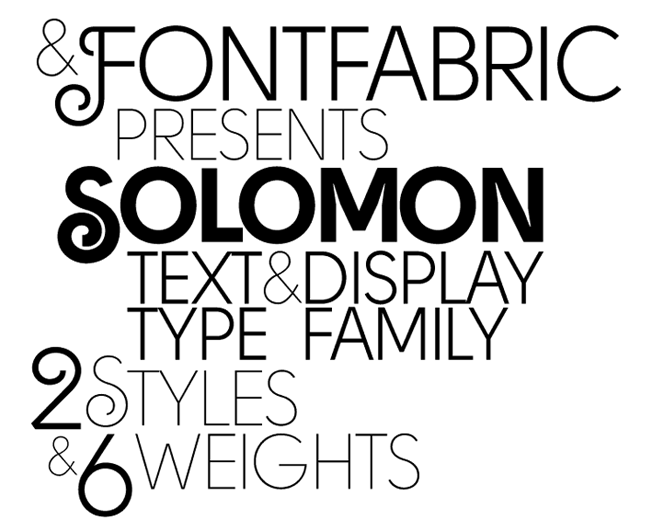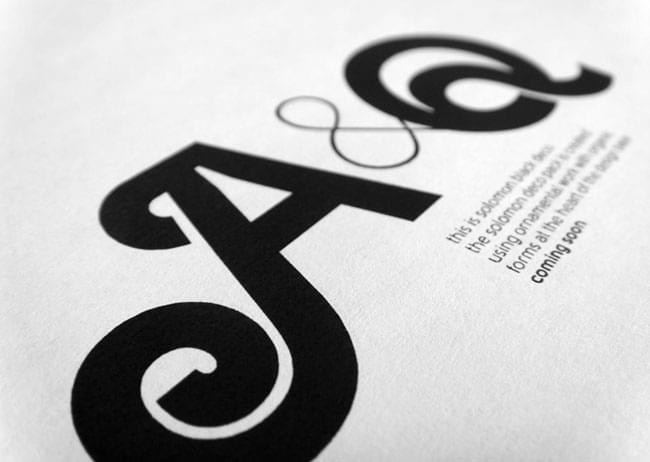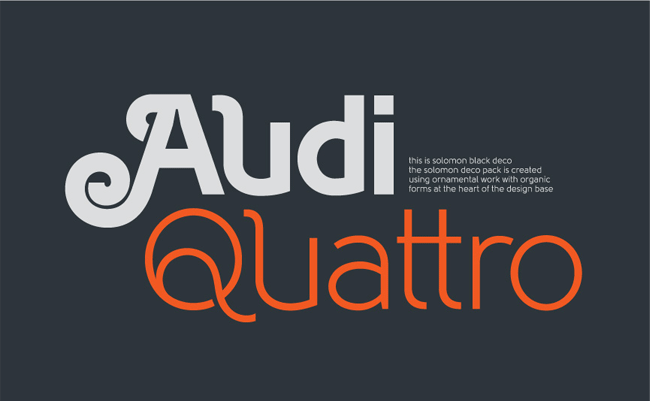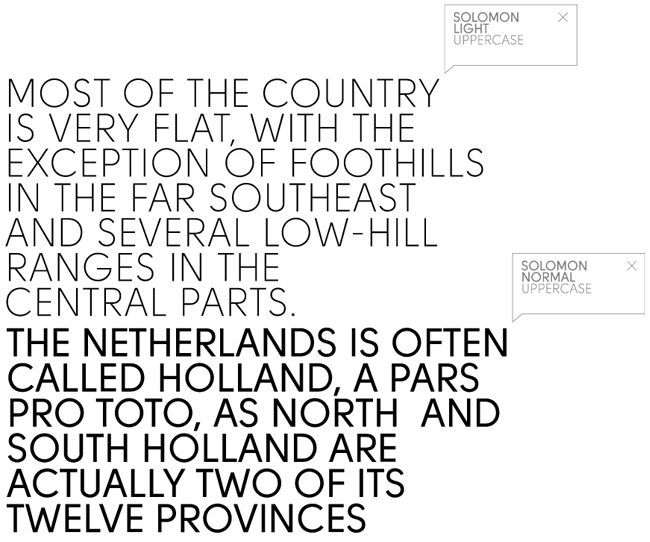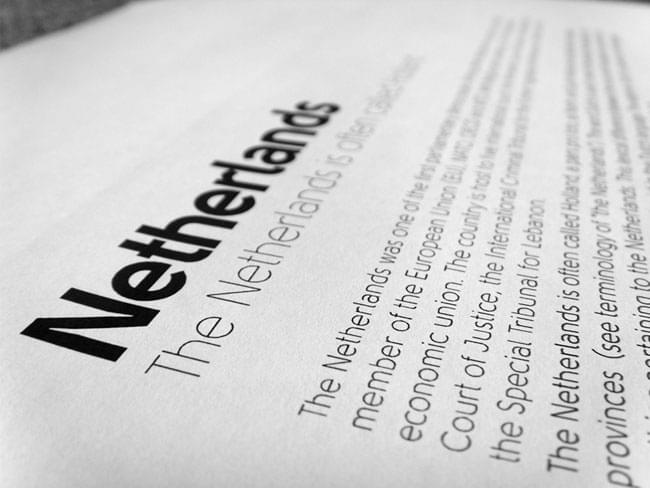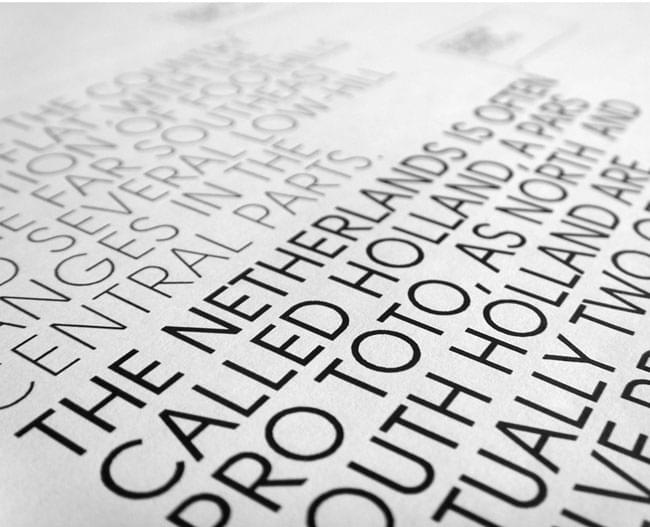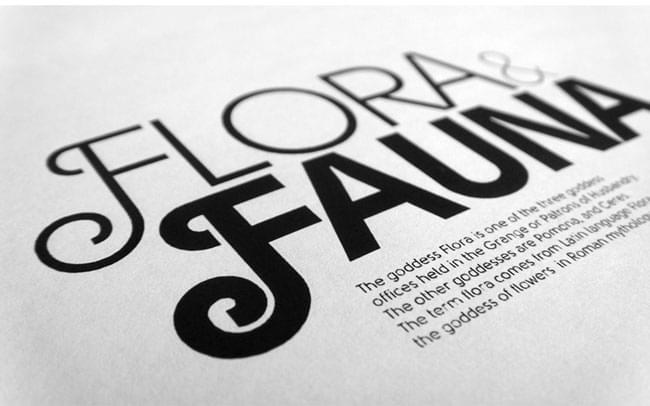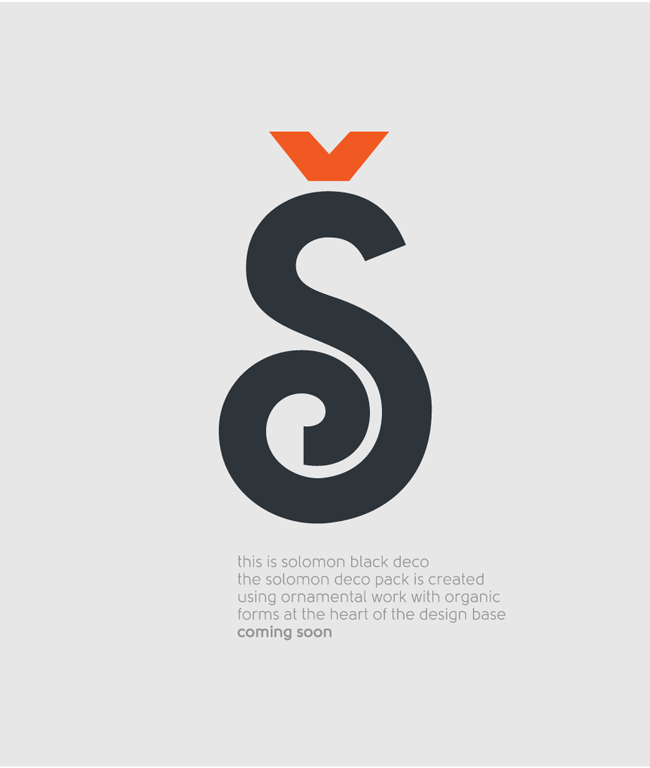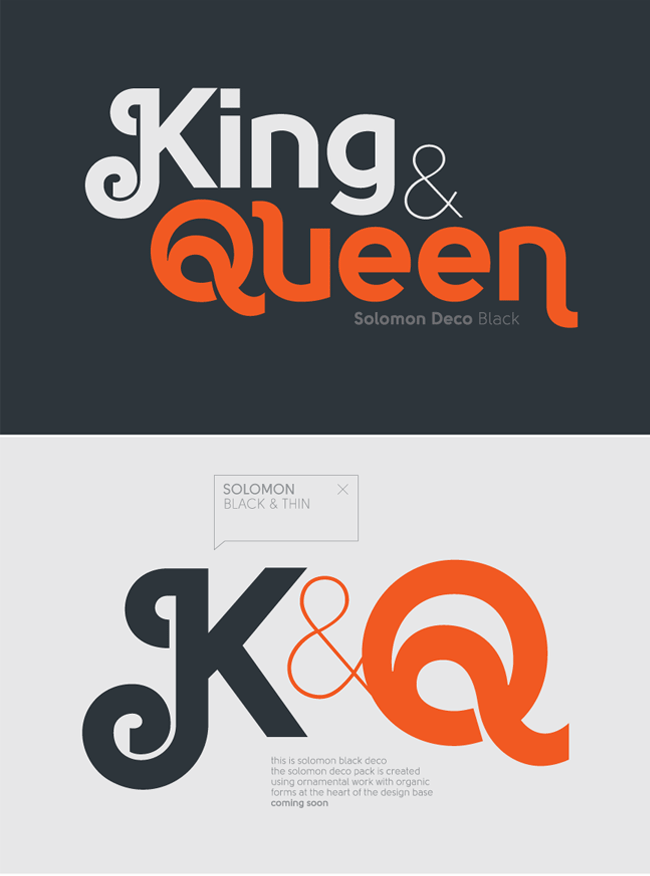
Fonts can be so much fun to work with. Whether you’re creating a logo, a T-shirt or a funky poster, having the right font can make all the difference. If you’re looking for something new, something clean, and something fun, you’ve come to the right place. This Mighty Deal offers up the Solomon Font Family, from Fontfabric, at a ridiculously reduced price.